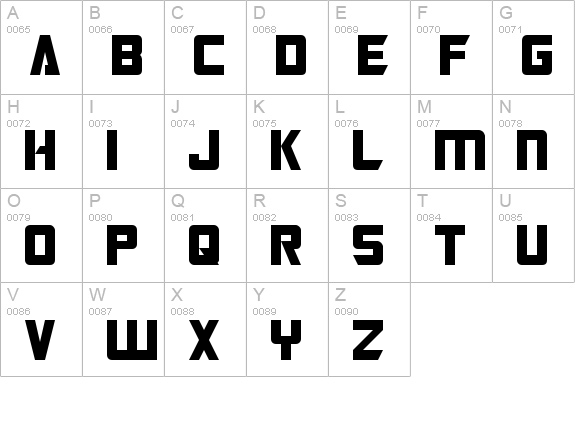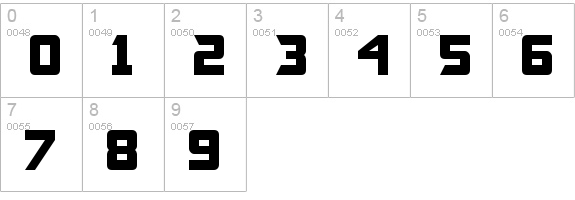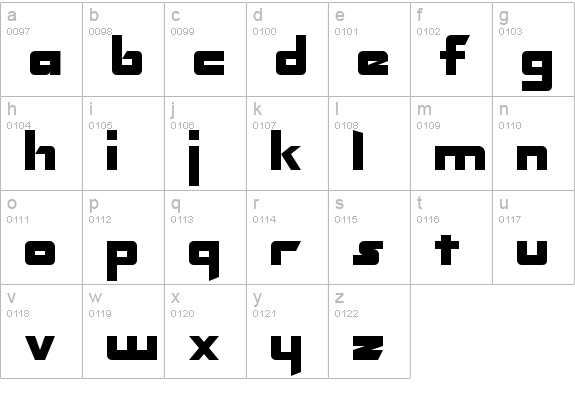
Transformers Solid Normal Font Details
Transformers Solid Normal is the standard, neutral variant in the Transformers typeface family \xE2\x80\x94 well suited to general body text, paragraphs, and standard typographic work.
Transformers Solid Normal font is a captivating typeface that will surely make a bold statement in any design project. With its sleek and modern design, this font is perfect for adding a touch of sophistication to your branding, advertising, or creative projects. The Transformers Solid Normal font features clean lines, strong letterforms, and a solid structure that exudes power and strength. Its bold and impactful appearance will instantly grab attention and leave a lasting impression. This versatile font can be used for a variety of purposes, from headlines and titles to logo designs and posters. Its legibility and readability ensure that your message will be communicated effectively, while its unique style adds a touch of creativity and flair. And the best part? Transformers Solid Normal font is available for free download at FontsMarket.com. That's right, you can easily access this stunning font without spending a dime. Whether you're a professional designer or a creative enthusiast, this font is a valuable addition to your collection. So why wait? Enhance your designs with the power and elegance of Transformers Solid Normal font. Download it for free now at FontsMarket.com and take your projects to new heights.